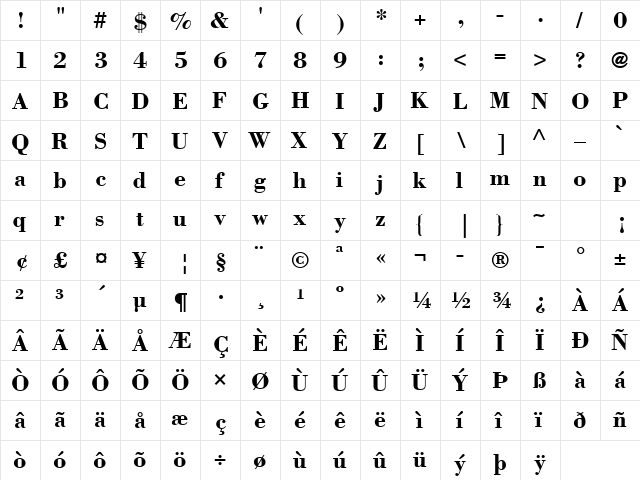
BodoniPS Bold
Design Context for BodoniPS Typeface
BodoniPS offers clean, dependable letterforms without strong stylistic allegiance, making it a practical choice for designers who need flexibility. Its bold stroke weight gives it real presence on the page.